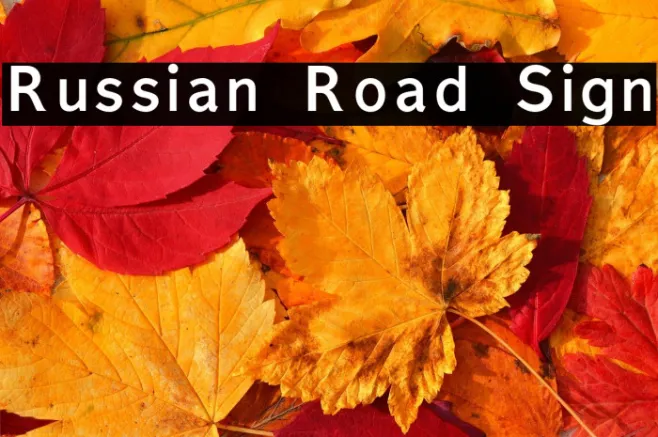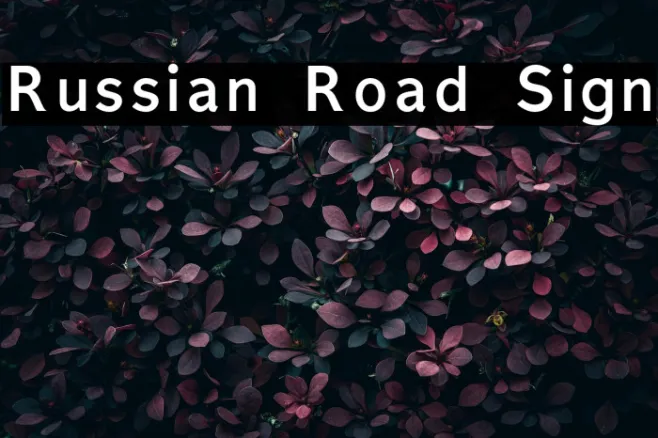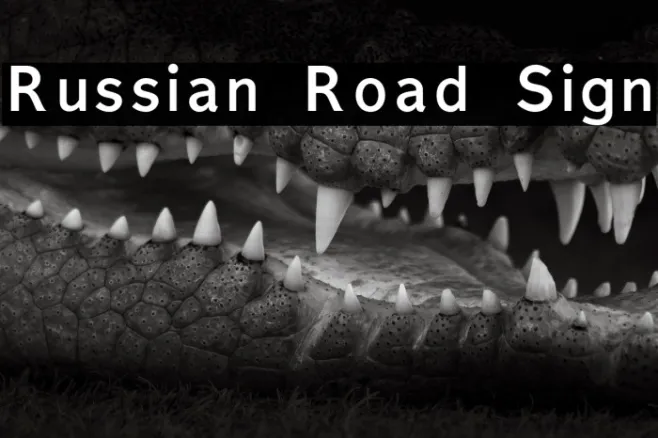
Russian Road Sign Font
Russian Road Sign Description
This font features a clean and modern sans-serif style with uniform stroke widths, making it highly legible and suitable for various applications. The characters are well-proportioned, with a balanced height and width that contribute to its readability. The uppercase letters are bold and assertive, while the lowercase letters maintain a consistent and harmonious appearance. The numerals are clear and distinct, ensuring easy recognition. Special characters are included, providing versatility for different uses. Overall, this font exudes a straightforward and professional aesthetic, ideal for conveying clear messages.
A modern, sans-serif font with clean lines and excellent readability from Uncategorized fonts.
- Proposed Projects: Ideal for road signs, informational displays, branding, and digital interfaces.
- Use Case: Headlines, Signage, Branding